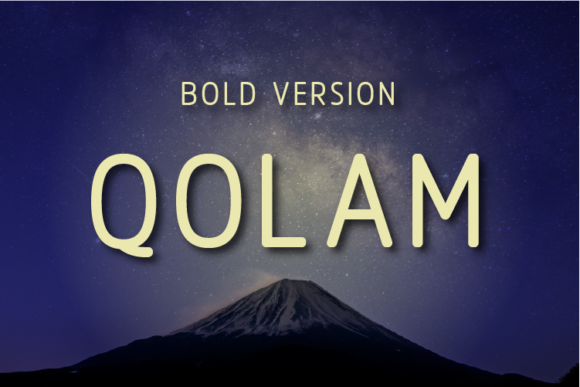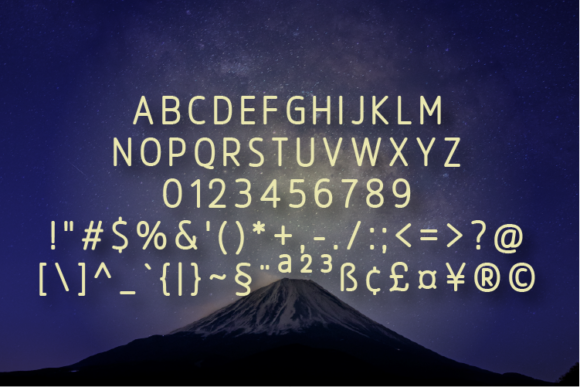
Qolam Bold Font
About Qolam Bold Font
Qolam Bold is a gorgeous Swedish-style sans serif font that is extremely versatile and timeless. Qolam can be used in many contexts and design environments. It’s perfect for invitations, magazines, websites, logos, and more!